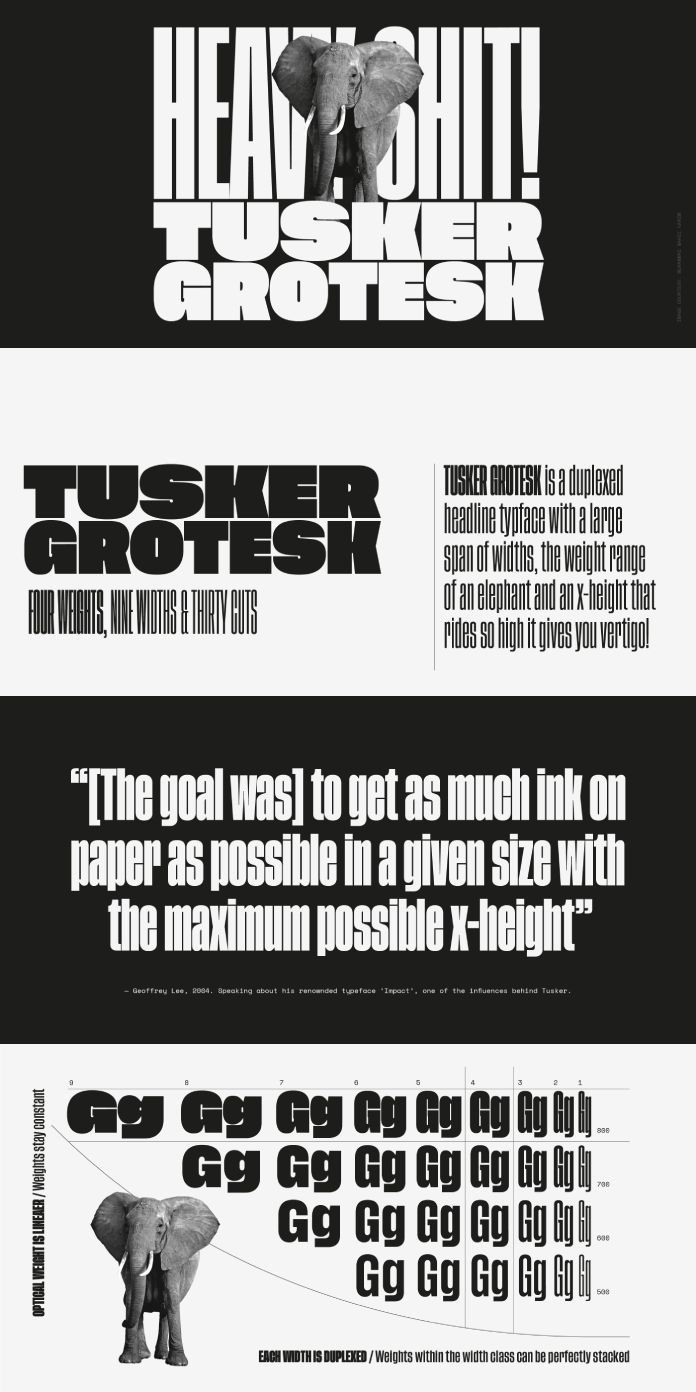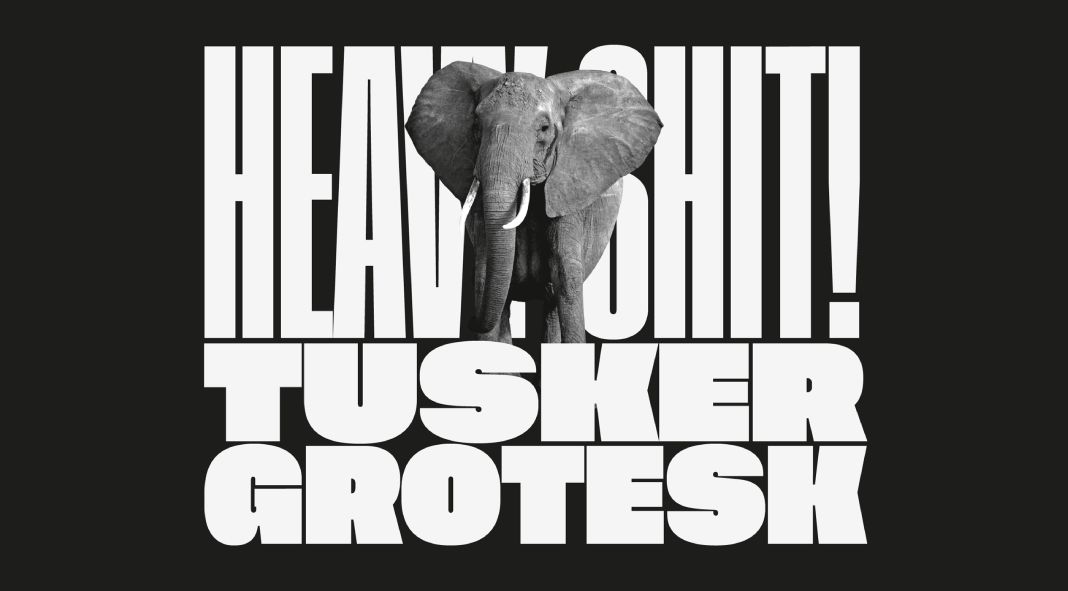
Tusker Grotesk: A Robust and Impressive Serif Font
Tusker Grotesk is a serif font specially designed for headings and attention-grabbing designs. The font is characterized by its robust construction and high legibility, making it ideal for use in a variety of media such as print, web, and digital signage.
Inspiration and Design
The original inspiration for Tusker Grotesk came from post-war fonts such as Haettenschweiler, Impact, and Helvetica Inserat, which are characterized by their very tall x-heights. This feature gives Tusker Grotesk a certain presence and ensures that it is easy to read even in small sizes.
Further influences in the Condensed range of the Tusker family are old grotesques such as Folio Extra Condensed and Stephenson Blake Elongated Sans No.1 with their flat endings and closed openings. These details give the font a classic and timeless character.
With the increasing width of the Tusker, the font takes further inspiration from the Gothic Sans style like the Title Gothic No.8 from Inland Type, while retaining the optical weight established in the narrow part of the family. This ensures that the font also looks balanced and harmonious in larger sizes.
Versatility and Functionality
All widths of Tusker Grotesk are dual-sided, stackable, and ideal for headings, logos, and attention-grabbing editorial design. The font also has extended Latin coverage, making it suitable for use in Western, Central, and Eastern European languages.
Here are some examples of how Tusker Grotesk can be used:
- For headings in magazines, newspapers, and websites
- For logos and brand identities
- For packaging design
- For signage
- For posters and advertising materials
Tusker Grotesk is a versatile and functional serif font that is characterized by its robust construction, high legibility, and timeless design. It is an ideal choice for designers who need a font that makes an impact both in print and digital media.
If you are looking for a robust and impressive serif font that is suitable for a variety of design applications, then Tusker Grotesk is an excellent choice.